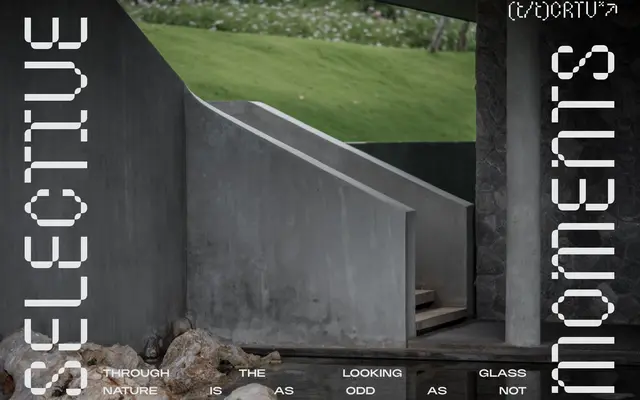
A single-weight ink-conscious sans serif covering an extended Latin character set with OpenType support for fractions, ordinals and superscript.
Designed with ink spread in mind, Fuuld draws on the tradition of ink-trap construction to keep letterforms crisp at small sizes and under printing pressure. It ships in one weight with a broad Latin character set that includes Latin Extended-A and -B coverage, making it serviceable across Western and Central European languages. OpenType features include fractions, ordinals, superscript and a small set of alternates for characters such as J, i and j.
Described explicitly as an ink-conscious sans serif, meaning its design accounts for ink spread at smaller sizes, a trait associated with ink-trap or ink-conscious grotesque construction.